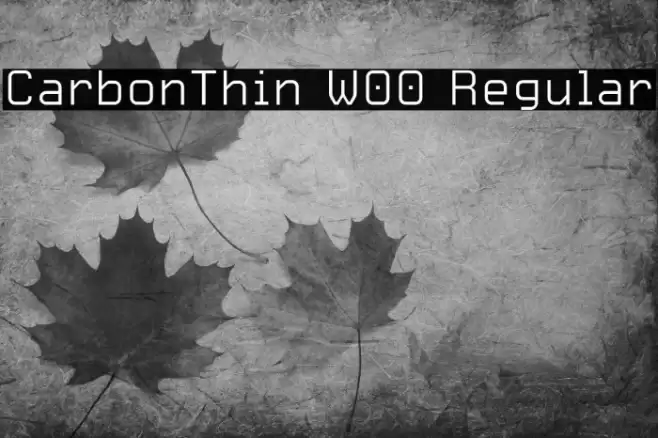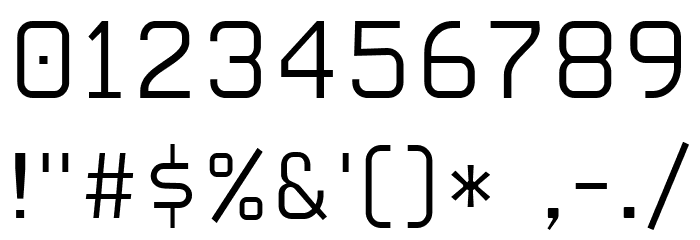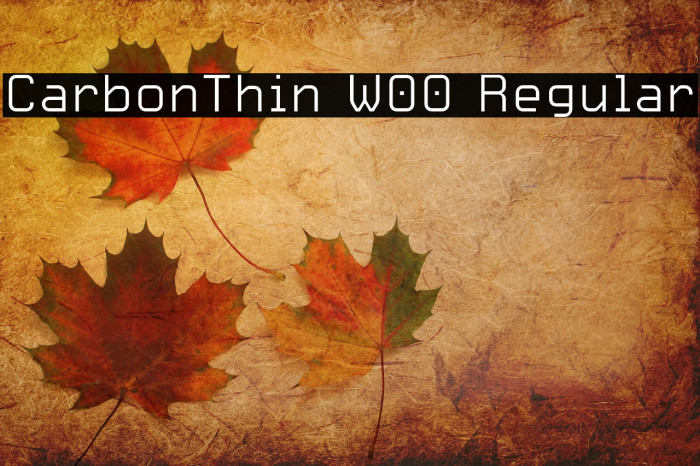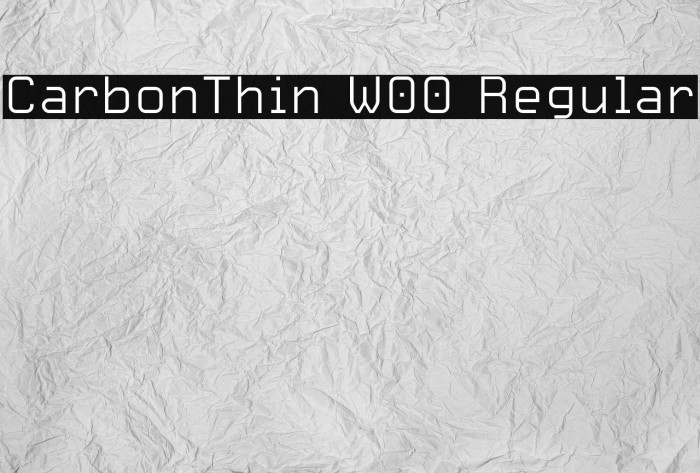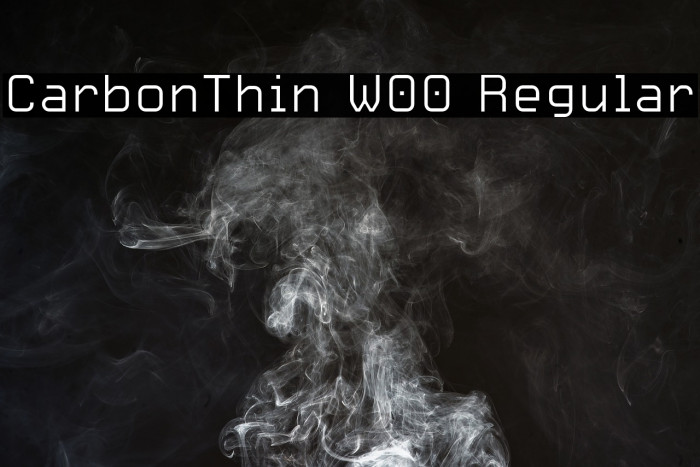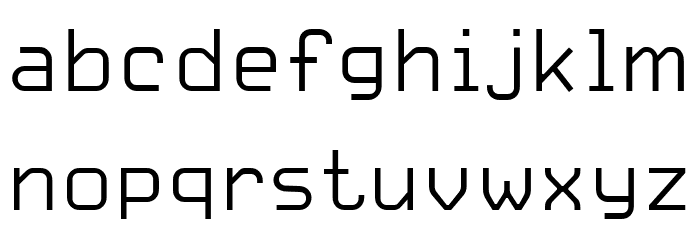
CarbonThin W00 Regular Font
CarbonThin W00 Regular Description
This font features a clean, geometric design with a modern aesthetic. The characters are constructed with uniform stroke widths, giving it a monospaced appearance. Its simplicity and clarity make it highly legible, even at smaller sizes. The uppercase letters are slightly taller than the lowercase, maintaining a consistent baseline. The numerals are distinct and easily distinguishable, while the special characters are designed to complement the overall style. The font's minimalistic approach makes it versatile for various applications.
A clean, geometric font with uniform stroke widths and a modern aesthetic from Futuristic fonts.
- Proposed Projects: Ideal for coding environments, technical documentation, minimalist graphic design, and modern branding projects.
- Use Case: Headlines, Body text, Logos, Coding